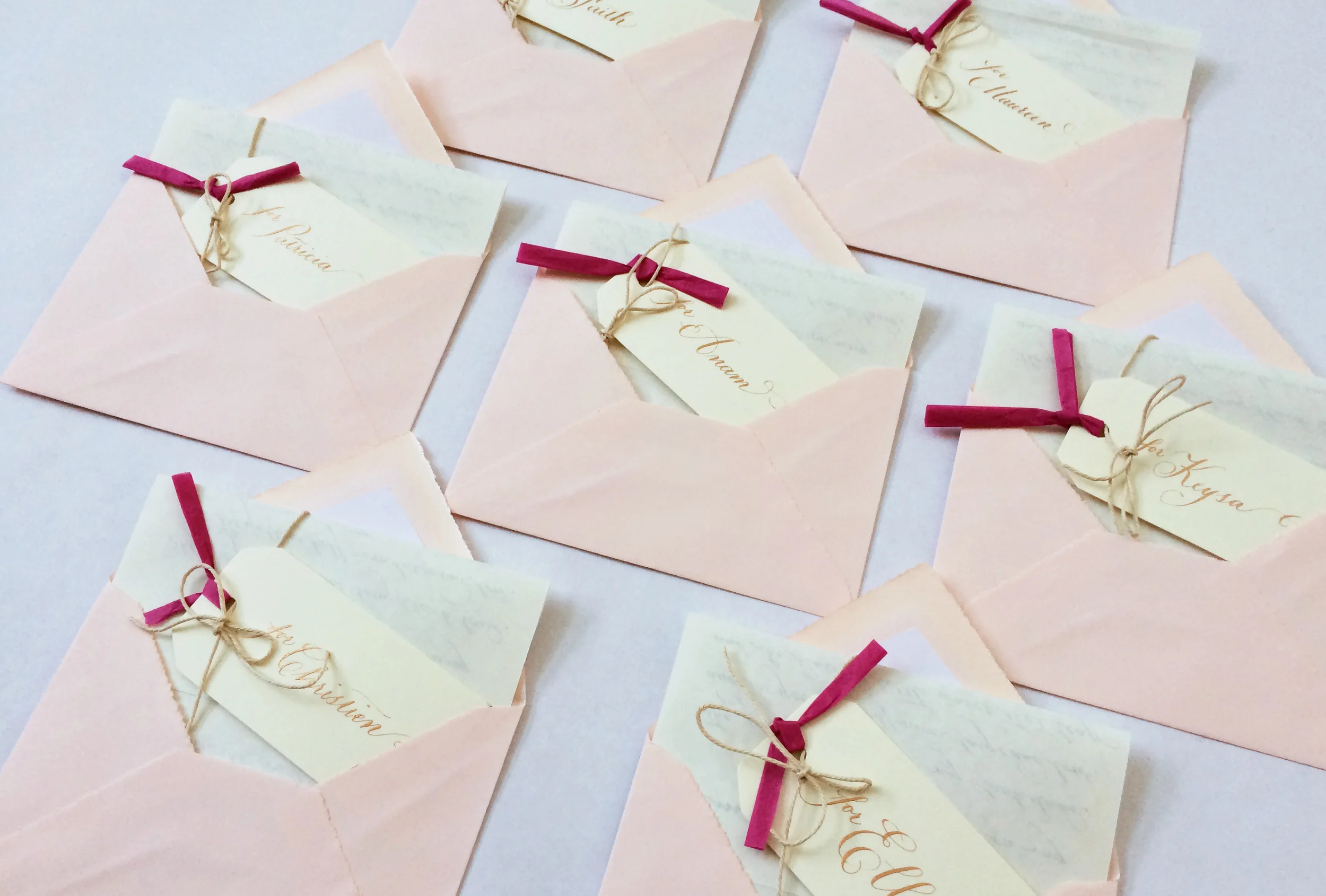
A Love Letter of Sorts
Meeting at Night, a poem by Robert Browning and its accompanying envelopes.
Little gifts of romance to my Valentine's exchange group.
Washington, D.C. — The Flourish Forum is a wonderful community for calligraphers and letter artists of all skill levels. I'm so grateful to have stumbled upon the forum while working on a wedding job last summer. It is the generous advice and open camaraderie of the community—not to mention our mutual love and enthusiasm for all things handwritten—that make the forum so special. One of my favorite aspects of the forum are the theme exchanges, in which we send our most creative letters to our assigned list of members.
I'm not a big Valentine's day person, and my family and friends can attest to my very non-romantic personality, but I found the Valentine's exchange to be especially inspiring and engaging. I took an old-timey approach and sent a Victorian love poem by Robert Browning, wrapped up in twine, to my exchange group. The different shades of pink, creme, and bronze made for a neat little Valentine's gift.